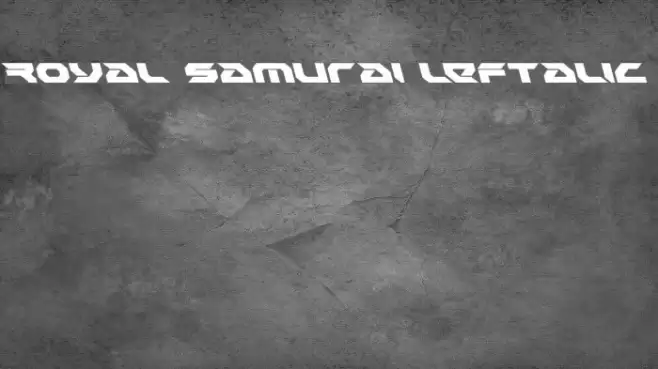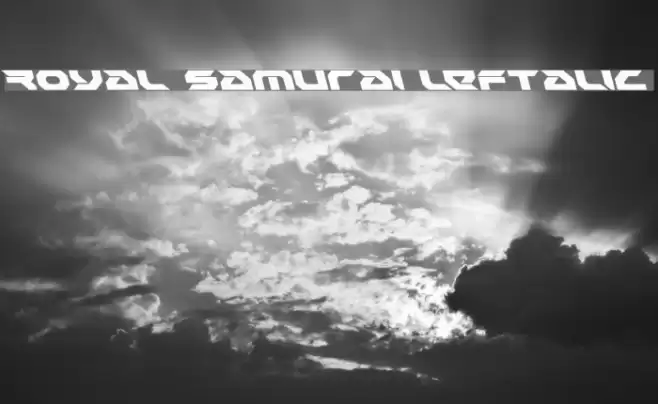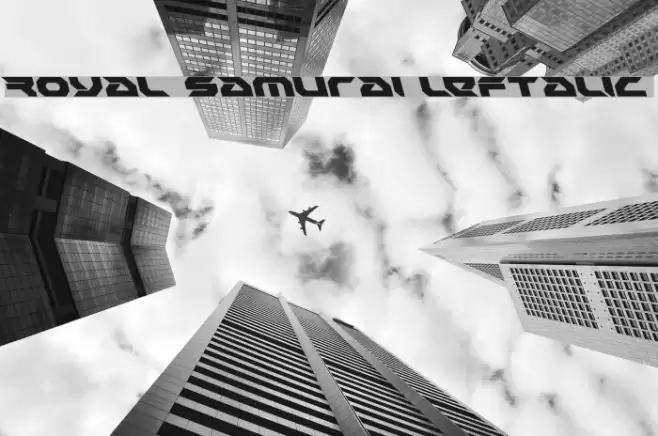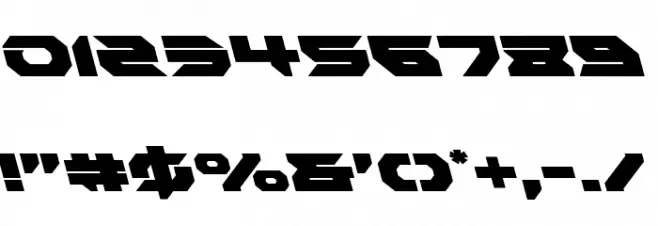
Royal Samurai Leftalic Font
Royal Samurai Leftalic Description
This font features a bold and angular design, reminiscent of samurai aesthetics with a modern twist. The characters are sharply cut with geometric precision, giving a sense of strength and power. The uppercase and lowercase letters maintain a consistent style, with a slight slant that adds dynamism to the overall appearance. The numbers and special characters follow the same design principles, ensuring uniformity across all glyphs. This font's unique style makes it stand out, ideal for projects that require a strong visual impact.
A bold, angular font with a modern samurai-inspired design from Uncategorized fonts.
- Proposed Projects: Ideal for branding, posters, video game titles, and any project requiring a strong, impactful visual style.